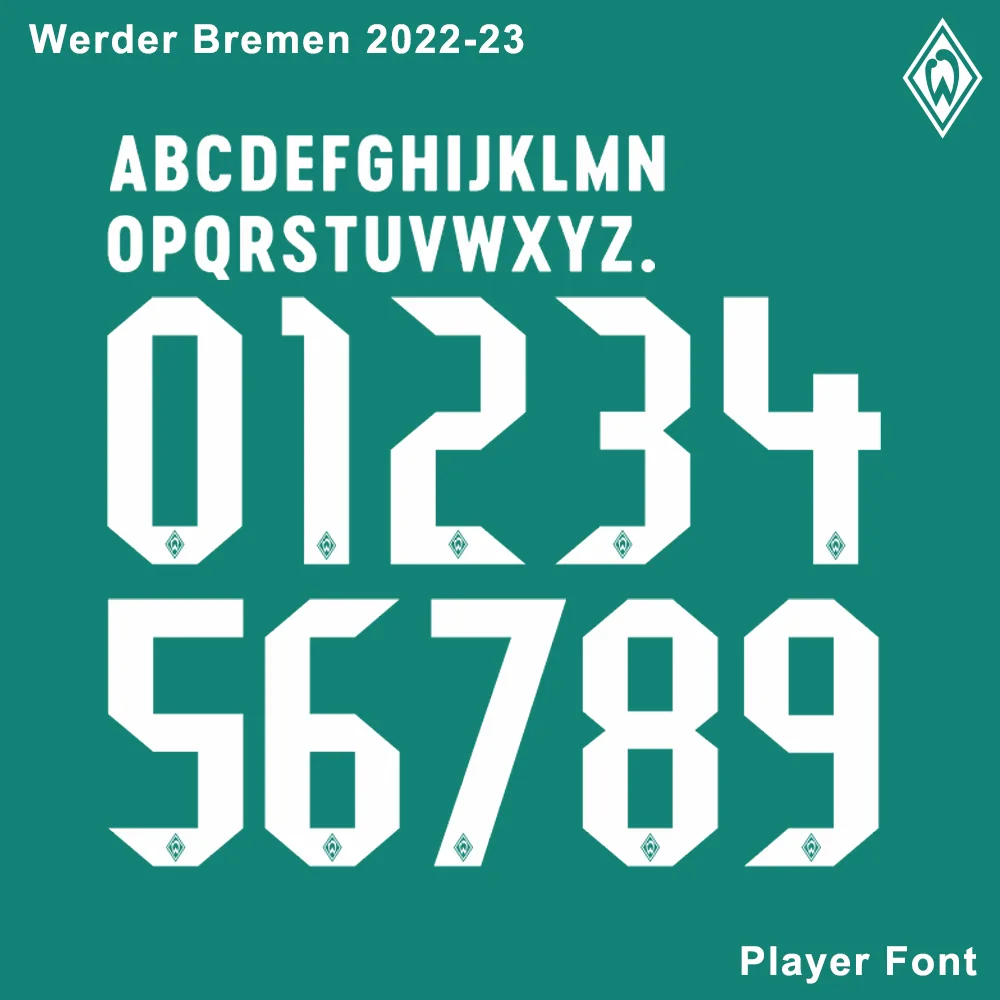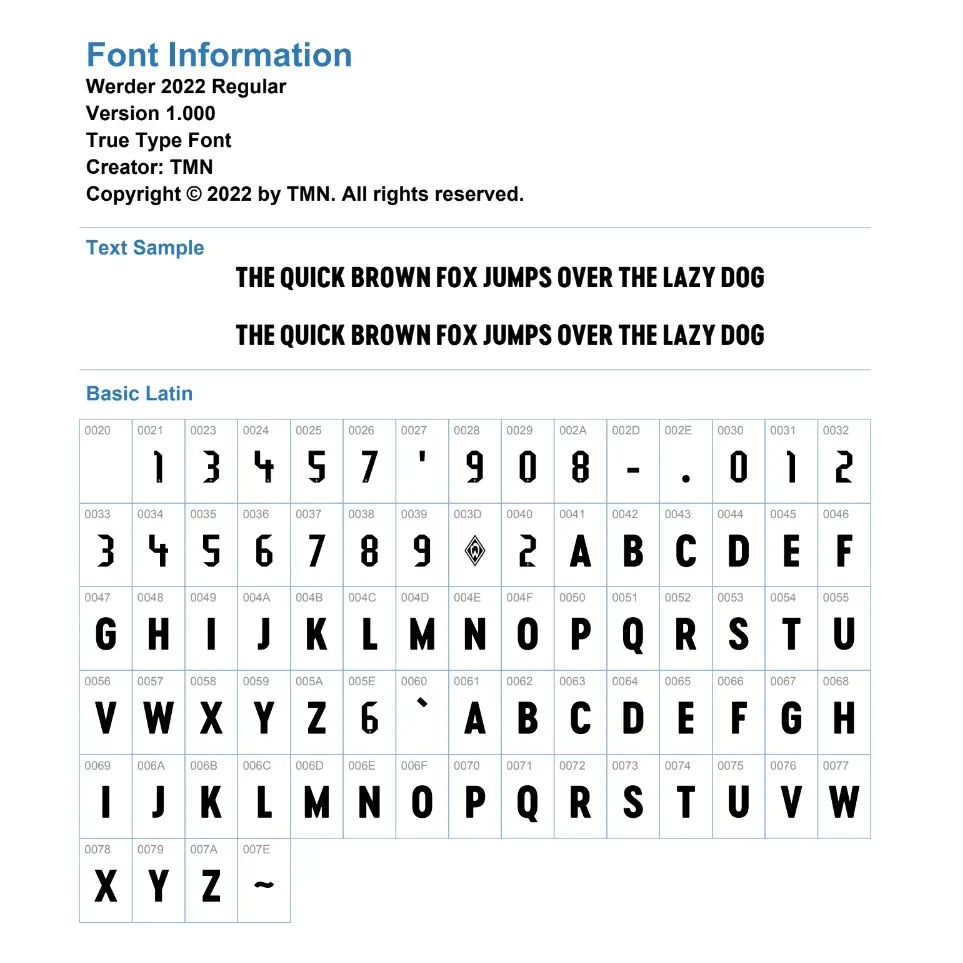
Download the official Werder Bremen 2022-23 Kit Font, perfect for fans and designers.
This unique typeface, inspired by the team’s 2022-23 kit design, is available for instant download in TTF and OTF formats. Ideal for creating custom jerseys, posters, and digital designs, this font captures the spirit of Werder Bremen. Enhance your projects with this exclusive font today. Browse our previews and download the perfect font files to elevate your creative work.